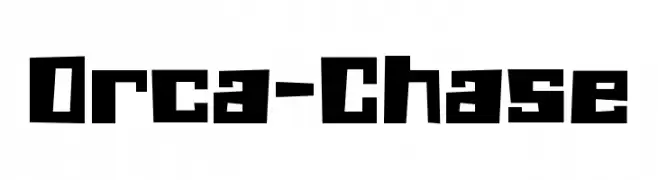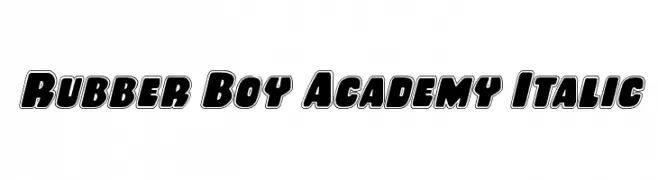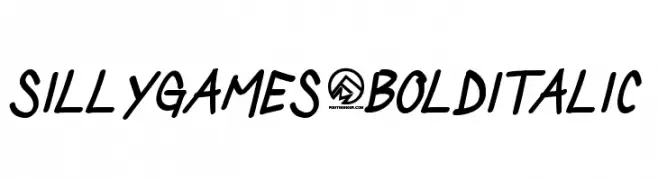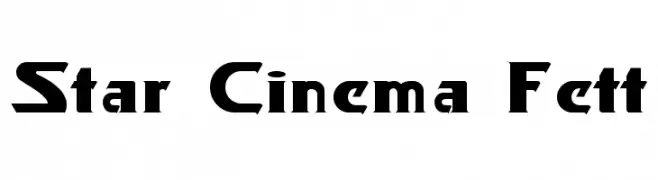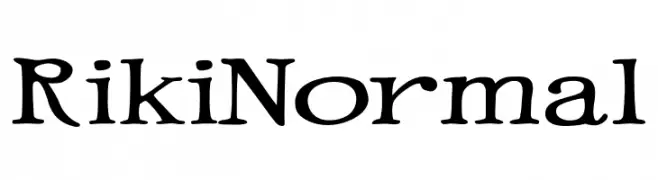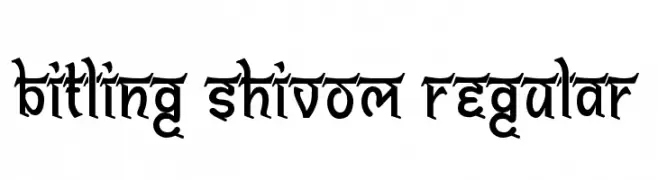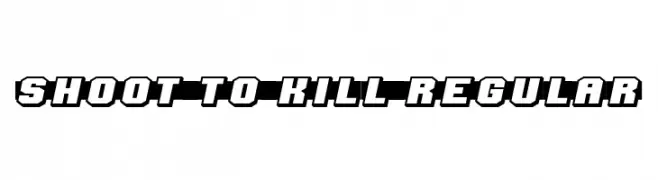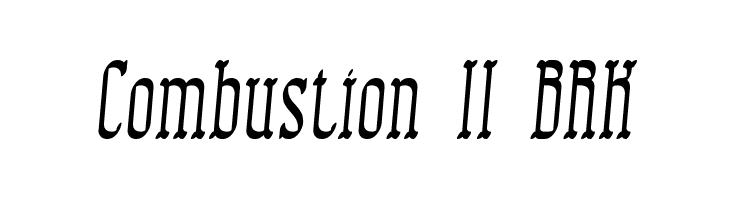
A bold, geometric font with angular and dynamic characters.
A bold, italic, outlined font with a playful and dynamic style.
A futuristic, bold italic font with geometric shapes and smooth curves.
A bold, futuristic font with sharp angles and geometric shapes.
A playful, hand-drawn font with bold, rounded characters.
A playful and artistic font with unique curves and angles.
A decorative font with intricate, calligraphic details and elegant curves.
A bold, dynamic font with a three-dimensional effect and strong visual impact.